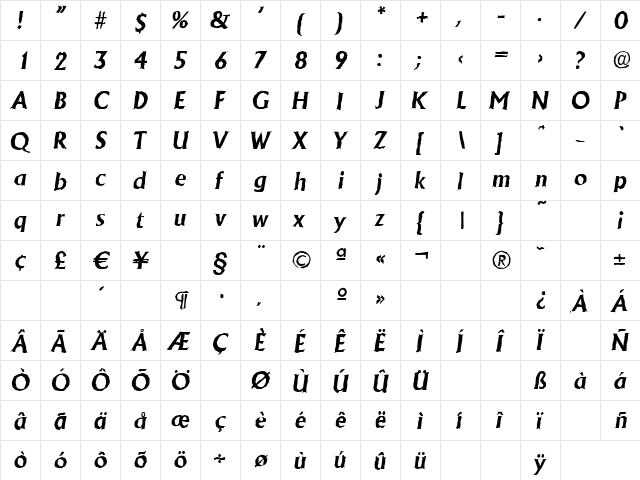
JacobBeckerAntique BoldItalic Font Preview
Design Context for JacobBeckerAntique Typeface
JacobBeckerAntique has the warm character of retro typography — evoking diners, record sleeves, and the golden age of print advertising. The slanted form adds forward momentum and visual energy. The heavy weight commands attention and anchors typographic hierarchies.
Font Pairing: Combine JacobBeckerAntique with a simple slab or neutral sans — period-accurate companions reinforce the vintage feel without competing for attention.
Pro Tip: Use JacobBeckerAntique for headlines and pull quotes rather than body copy — its personality is best appreciated in short, focused bursts.